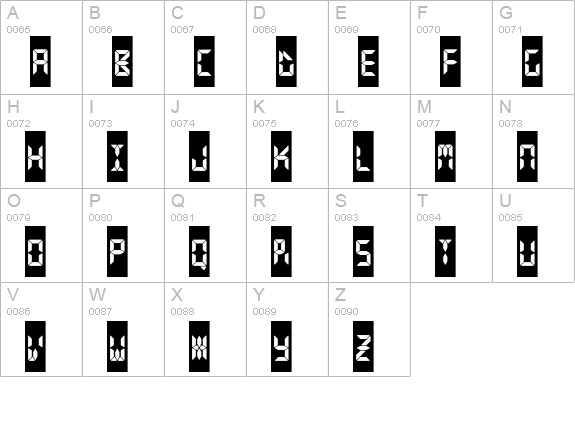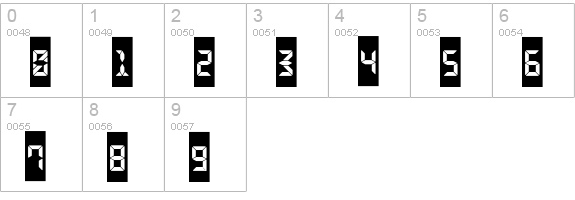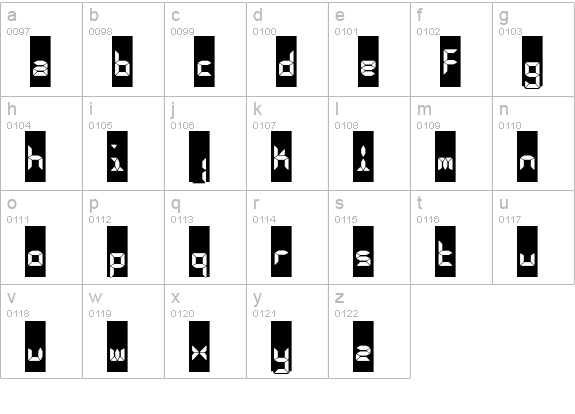
CalculusLCDCameo Font Details
CalculusLCDCameo font is a modern and sleek typeface that is perfect for adding a touch of sophistication to your designs. With its clean lines and geometric shapes, this font exudes a sense of professionalism and elegance. Whether you're designing a logo, creating a poster, or crafting a website, CalculusLCDCameo font is sure to make a bold statement. What's even better is that CalculusLCDCameo font is available for free download at FontsMarket.com. You can easily enhance your projects with this stylish and versatile font without breaking the bank. So why wait? Download CalculusLCDCameo font today and take your designs to the next level!